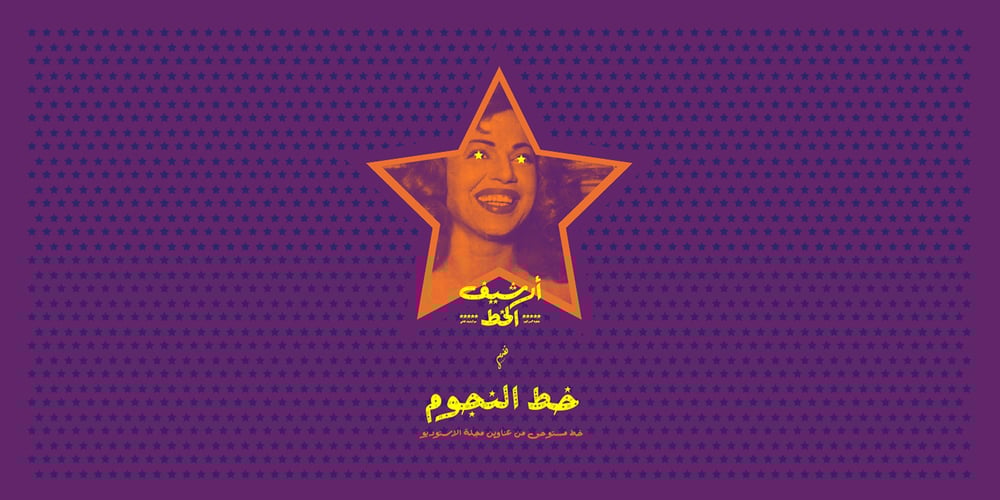
Nogoom Font Family was designed by published by Abjad. Nogoom contains 2 styles and family package options. Nogoom was inspired by the titles of Egyptian Magazine ALOSTUDIO, which used to be published during the 50s-60s. The typeface is part of Arsheef Alkhatt Project, a platform that revives and tributes classical Arabic lettering from different resources and presents them as affordable, digital fonts for independent designers. Nogoom means stars in Arabic, hence the name. Note: The font uses an Opentype feature for the connections that are not supported by MyFonts tester, but it works properly with all Adobe CS softwares.